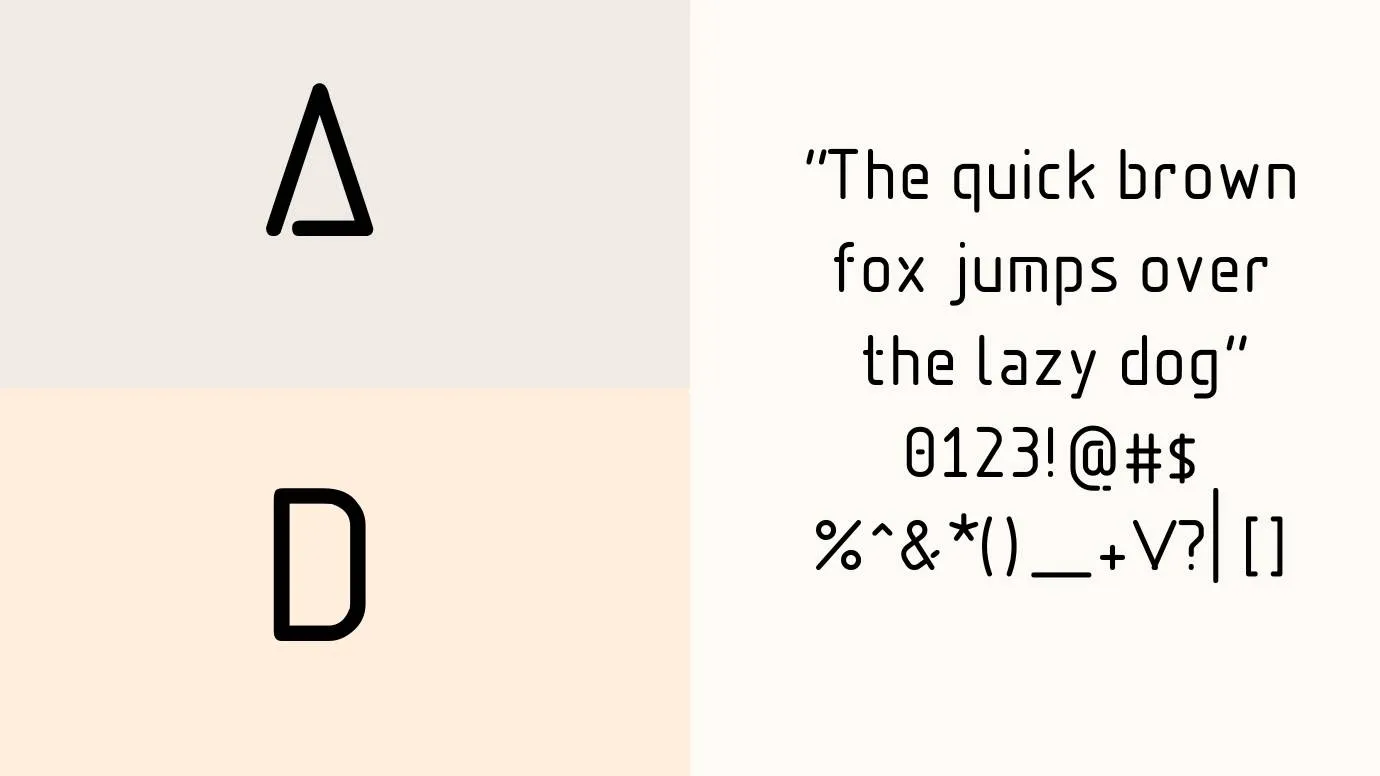
Aadhunik Font is a very amazing display-type font that was designed by Hareesh Seela. The look of this font is very unique you can make all personal and commercial projects by using this font.
Aadhunik Font
NameAadhunik Font
DesignerHareesh Seela